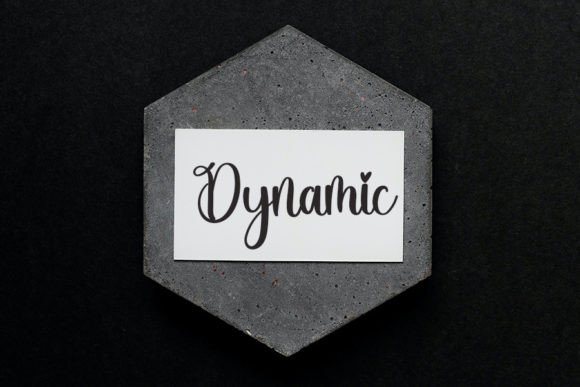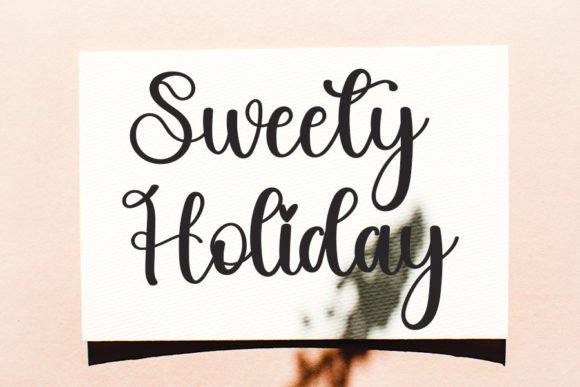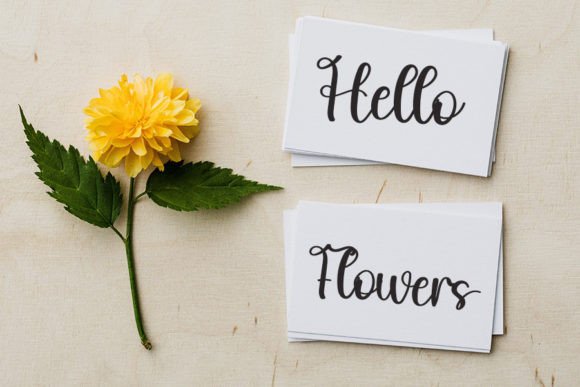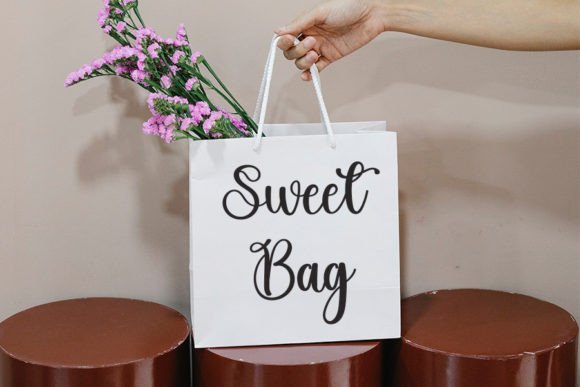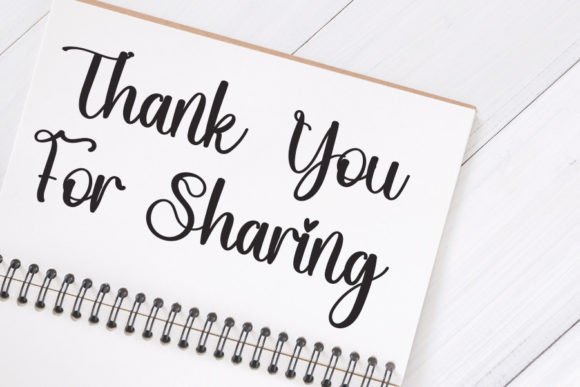
About Shuffle Font
Shuffle is a trendy handwritten font that exudes a contemporary atmosphere with impeccable form, drawing inspiration from timeless classic calligraphy. This font adds an element of elegance and class to your design projects, making it a versatile choice suitable for various types of products and adaptable to the specific requirements of each design need.
The contemporary atmosphere of Shuffle positions it well for modern design contexts. Whether you’re working on branding, websites, or business cards, the font’s trendy style contributes to a sophisticated and up-to-date aesthetic.
The impeccable form of Shuffle showcases a high level of craftsmanship, making it an ideal choice for projects that require a touch of elegance. The font’s calligraphic inspiration adds a timeless quality, enhancing the overall appeal of your text.
Shuffle is versatile and can be applied to various kinds of products. Whether you’re creating product labels, invitations, headlines, or other design elements, the font adapts to the context while maintaining its stylish and elegant character.
In summary, Shuffle is more than just a font; it’s a design asset that brings a trendy and sophisticated vibe to your projects. Whether you’re working on modern branding or classic invitations, Shuffle adds an element of elegance and class, making your designs stand out with impeccable style.